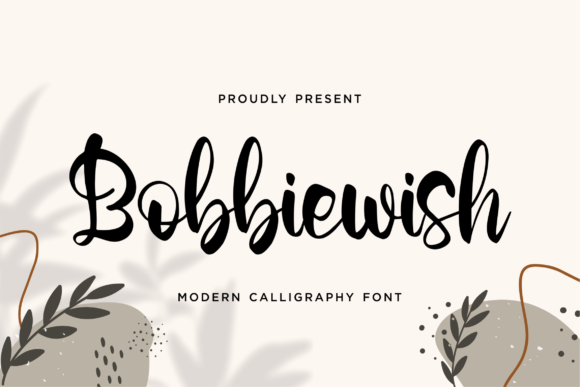
In a world where brands strive to stand out, Bobbiewish Font, the epitome of charm and distinction, emerges as the ultimate game-changer. This enchanting script font, conceived by qwrtypefoundry, is not merely a collection of letters; it's an artistic masterpiece, a symphony of strokes that dance and swirl, leaving an indelible mark on the hearts and minds of your audience.
As a brand designer, you understand the significance of a captivating logo, one that instantly captures attention and leaves a lasting impression. With Bobbiewish Font as your ally, crafting such a logo becomes an effortless endeavor. Its graceful curves and playful nature lend a touch of whimsy and elegance, setting your brand apart from the mundane and propelling it into the realm of the extraordinary.
But Bobbiewish Font is not confined to the realm of logos. Its versatility extends far beyond, making it the perfect companion for a myriad of creative projects. Whether you're designing children's games, crafting heartwarming invitations, or simply seeking to add a touch of enchantment to your designs, Bobbiewish Font stands ready to elevate your creations to new heights.
Imagine the captivating allure of a children's book, its pages adorned with Bobbiewish Font's enchanting characters. The letters themselves become storytellers, guiding young readers through fantastical worlds and sparking their imaginations. Or envision the delight of receiving a wedding invitation penned in Bobbiewish Font's delicate strokes, each letter a testament to the love and joy of the occasion.
The possibilities are endless, limited only by the boundaries of your creativity. With Bobbiewish Font at your fingertips, you possess the power to transform the ordinary into the extraordinary, to create designs that resonate with your audience and leave an enduring legacy.
So embrace the magic of Bobbiewish Font, let its whimsical nature inspire you, and embark on a creative journey that will redefine your design horizons. The world of branding and design awaits your artistry, and Bobbiewish Font is your key to unlocking its full potential.